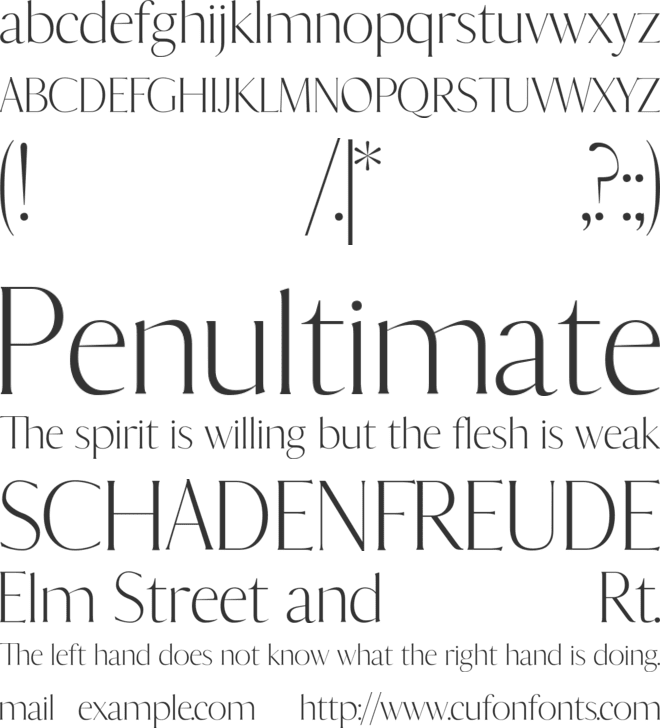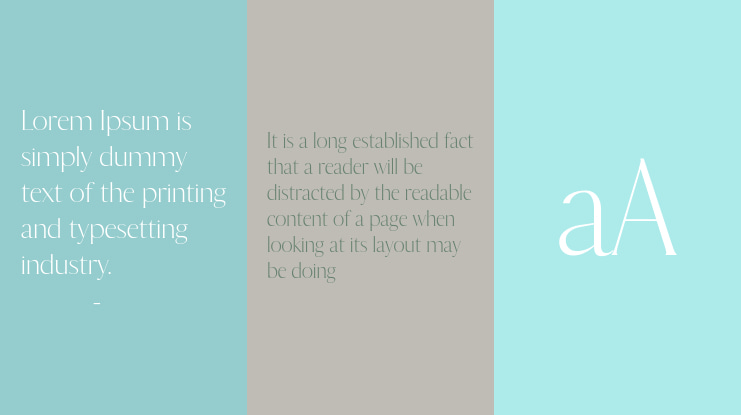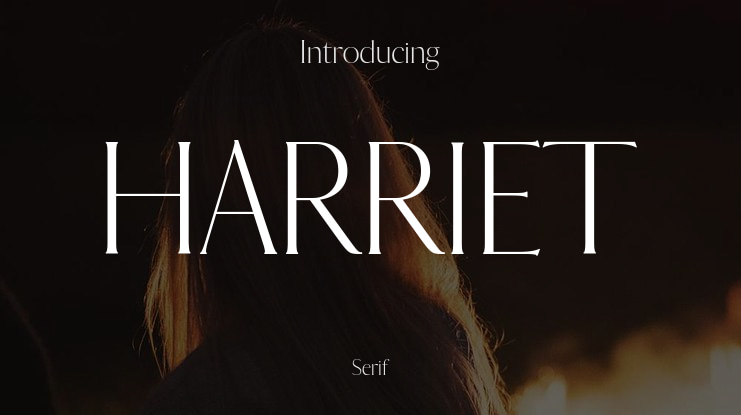
HARRIET Font Family
🎨 Font Name: HARRIET by Minimalist Art Studio
🎨 Font Description: HARRIET is a classic serif with timeless poise and multilingual finesse, ideal for editorial, branding, and refined lifestyle design.
βœ” Complete Latin set + multilingual diacritics
βœ” Alternates, stylistic sets & ligatures
βœ” Numbers, small caps, and extended punctuation
βœ” Bonus italics and family styles